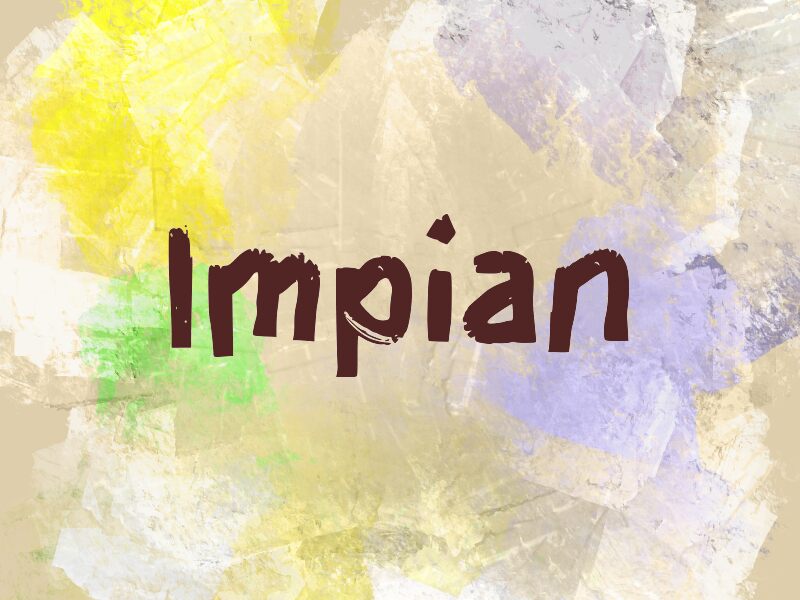
Impian
Impian font by wep is a free display font that exudes an artistic flair and contemporary feel. Its hand-drawn appearance and textured look create an expressive, organic visual with a casual vibe. The overall effect is both fresh and engaging, making it perfect for a variety of design applications.
Use Impian in T-shirt designs, poster designs, book cover titles, birthday invitations, certificate designs, logo typography details or general branding projects. It’s also useful in social media posts/ads graphics such as Instagram stories/posts or Facebook advertising to promote Mobile Apps (Programming Guides), or Game Designs.